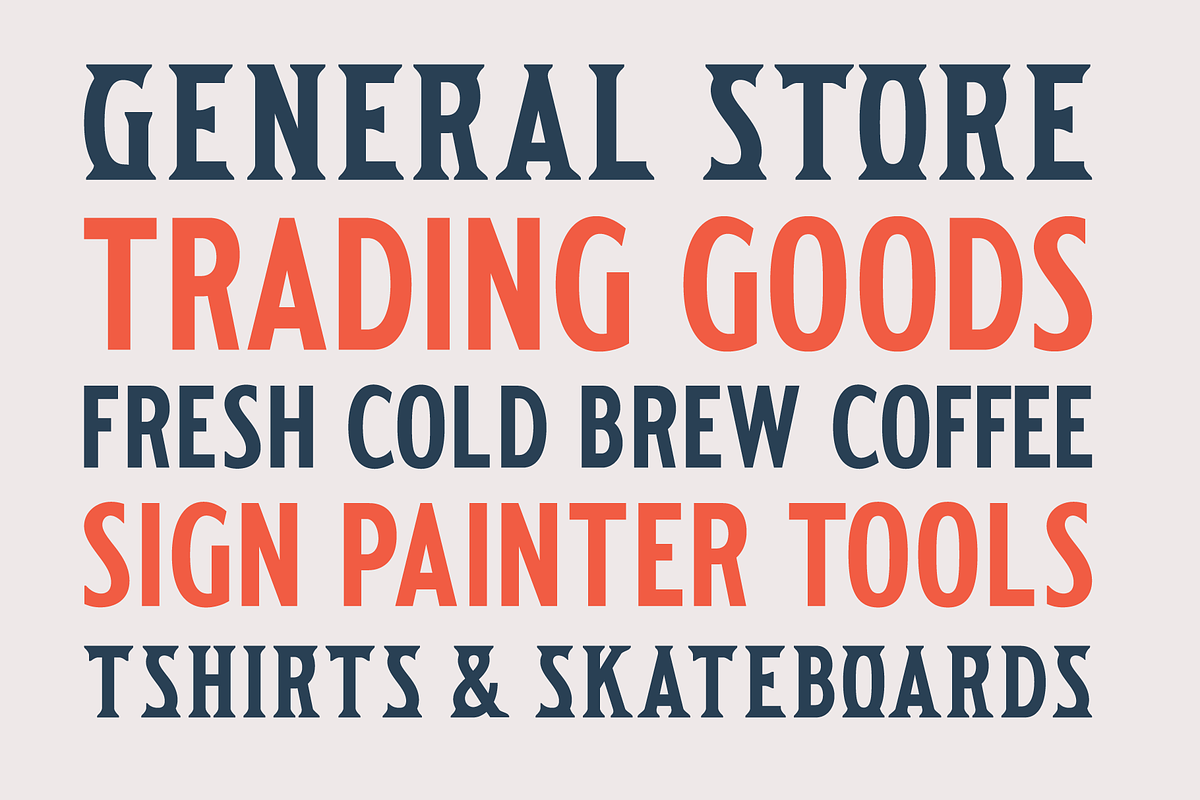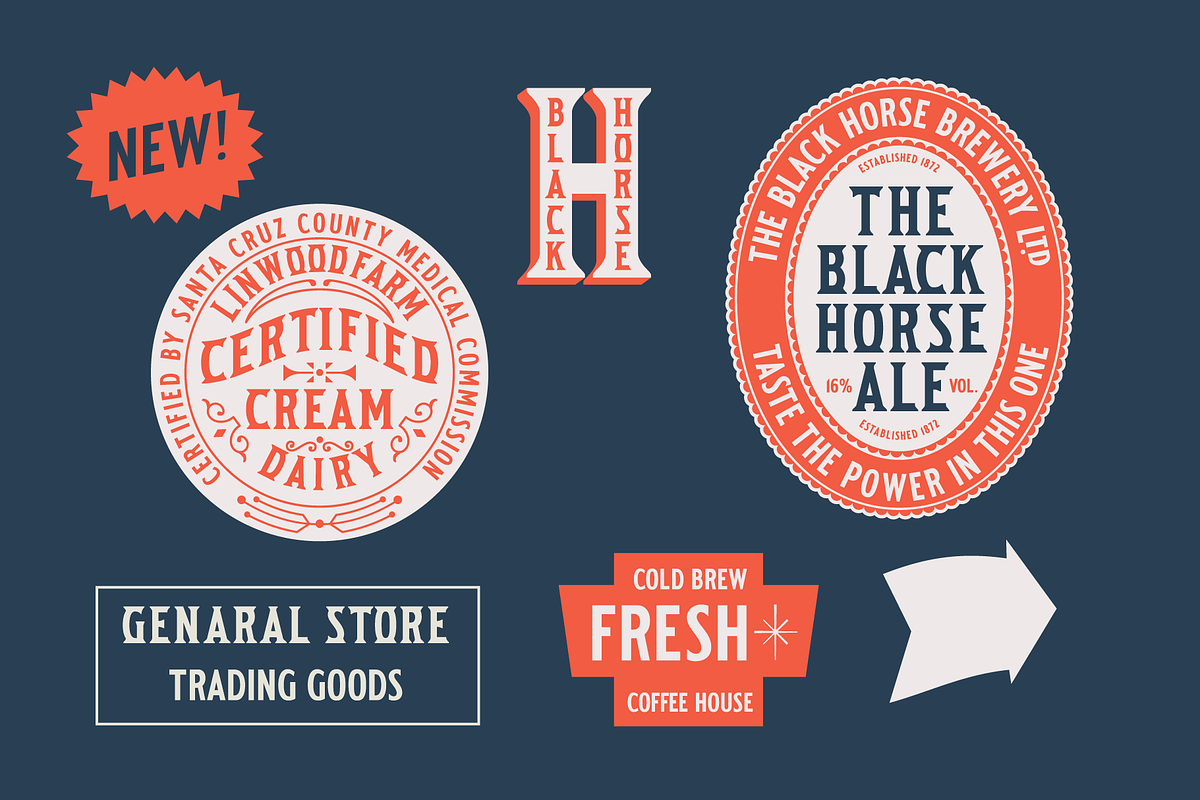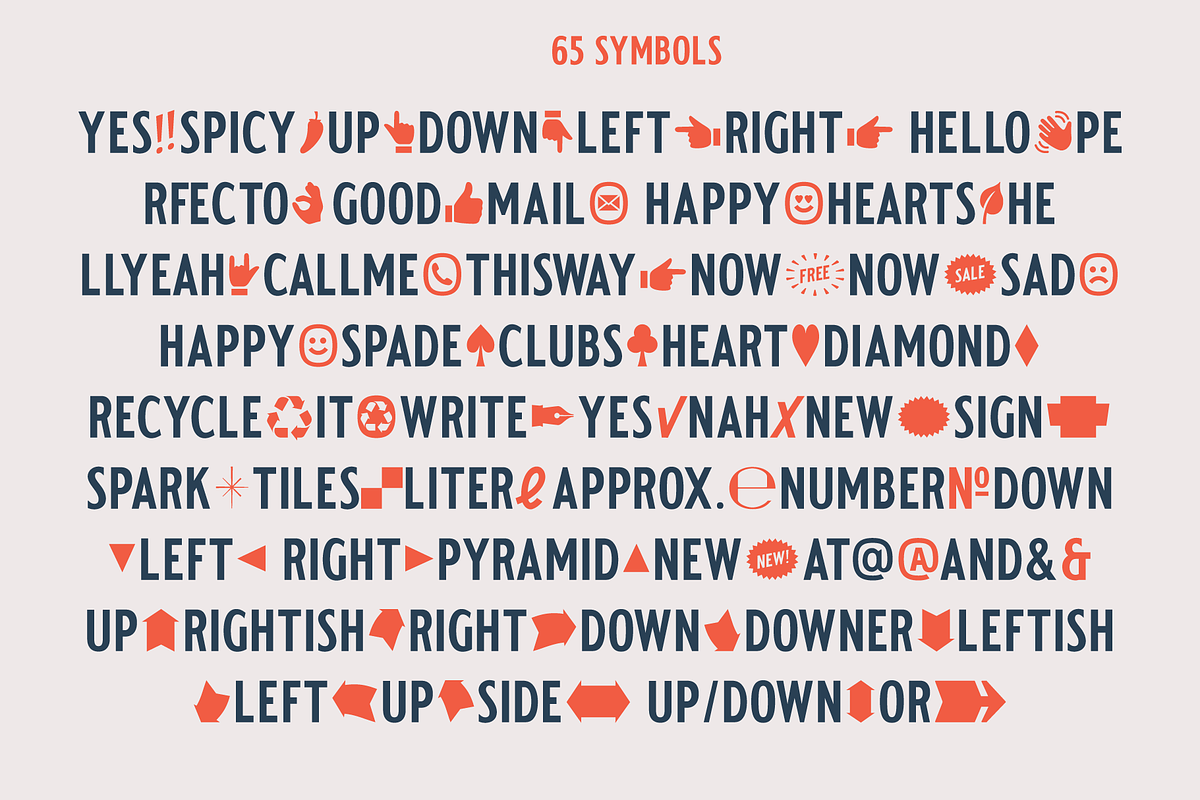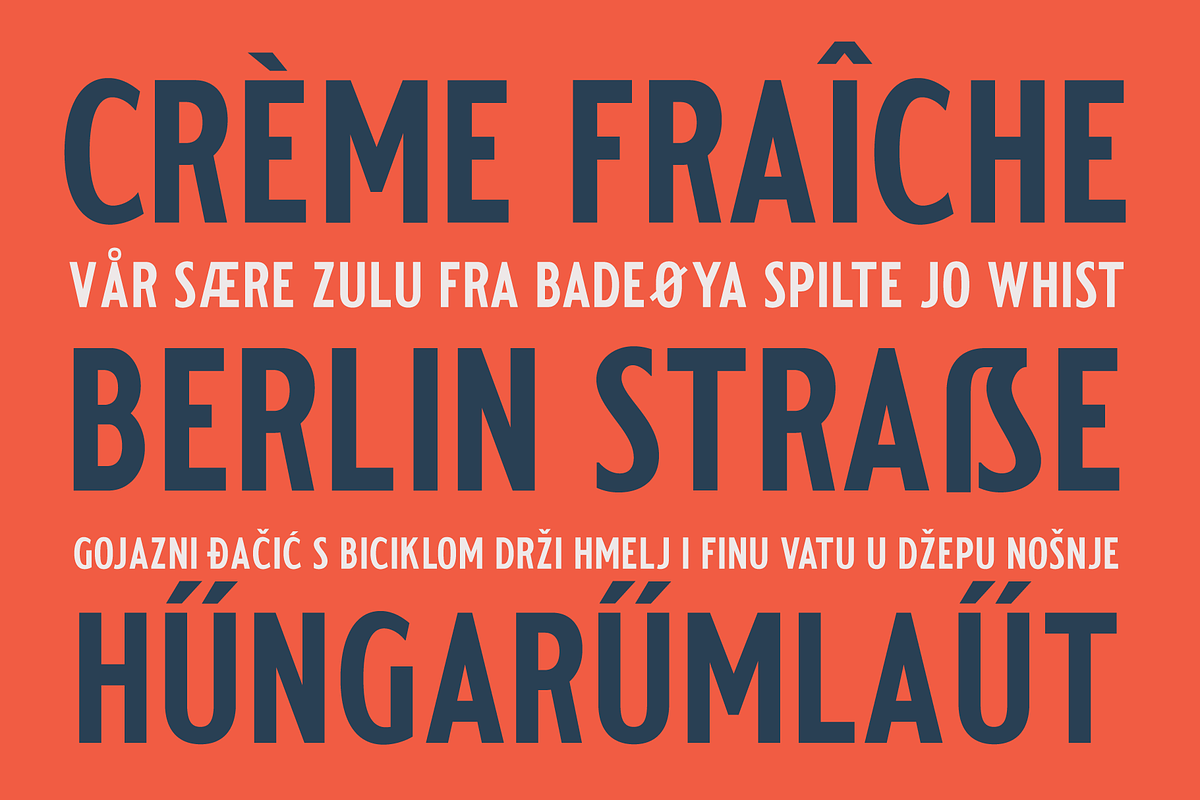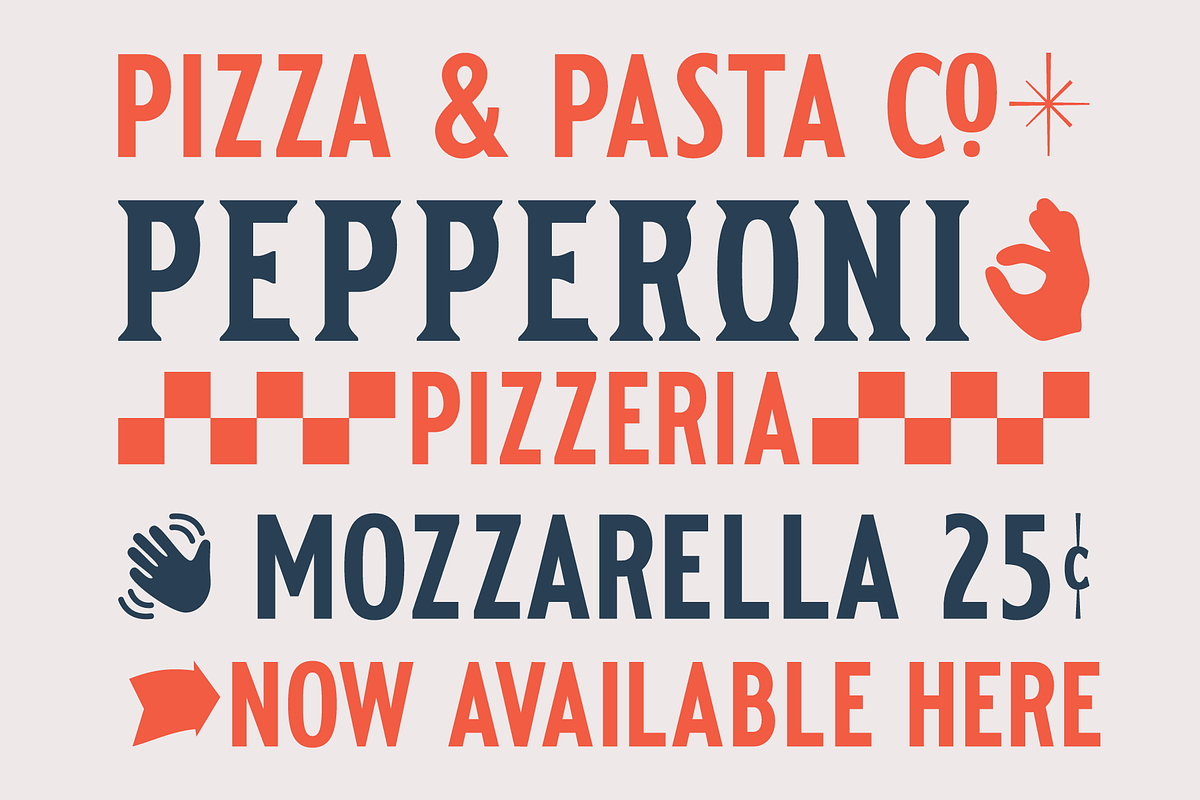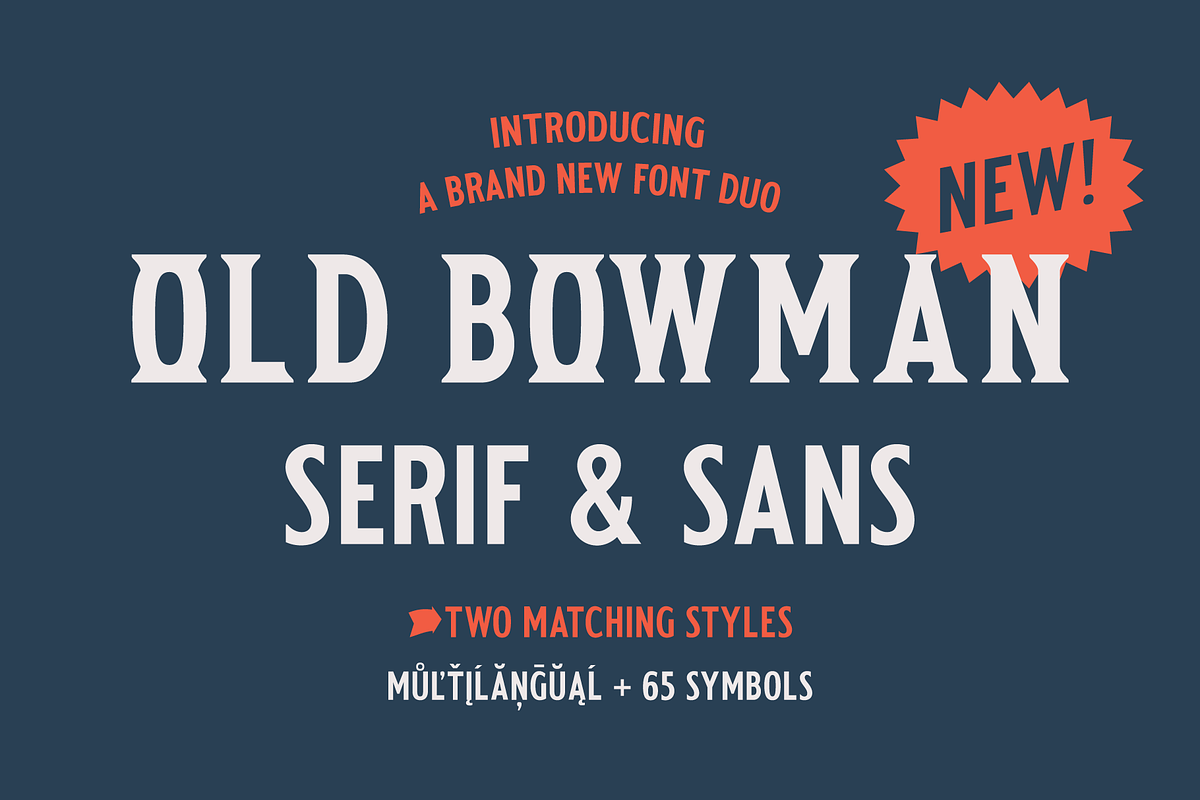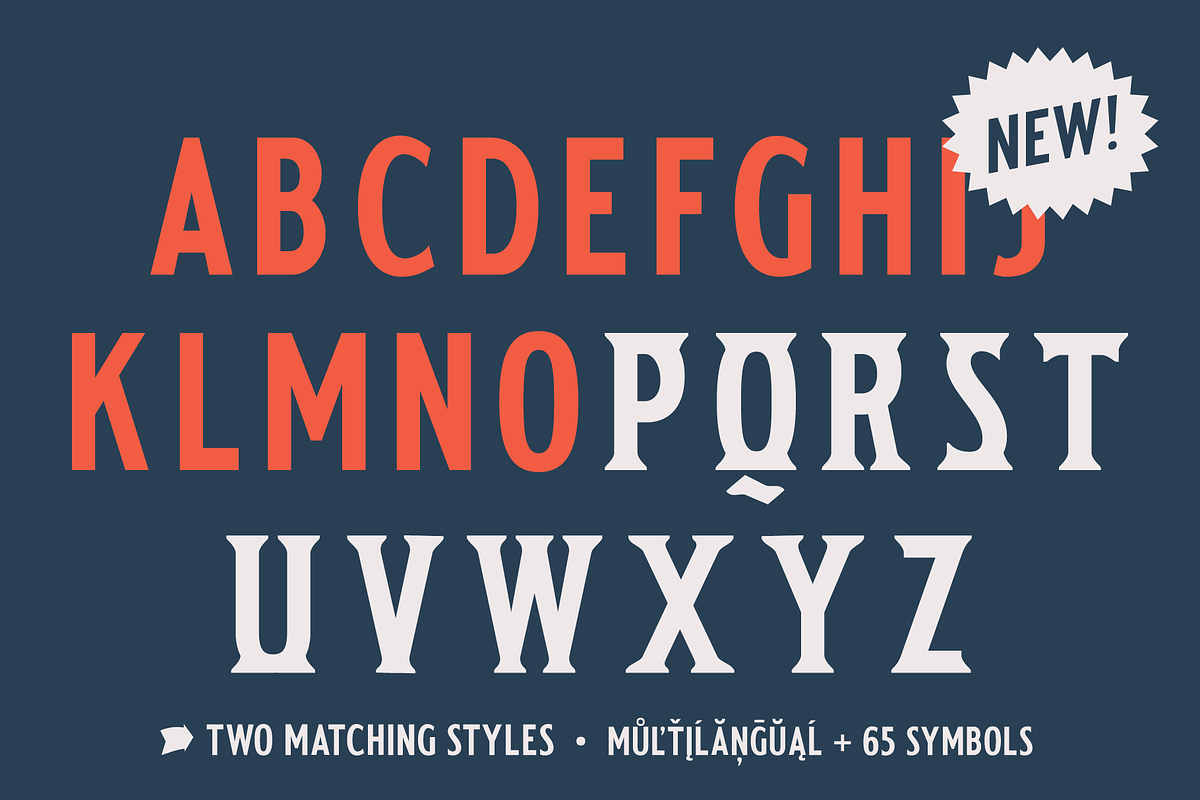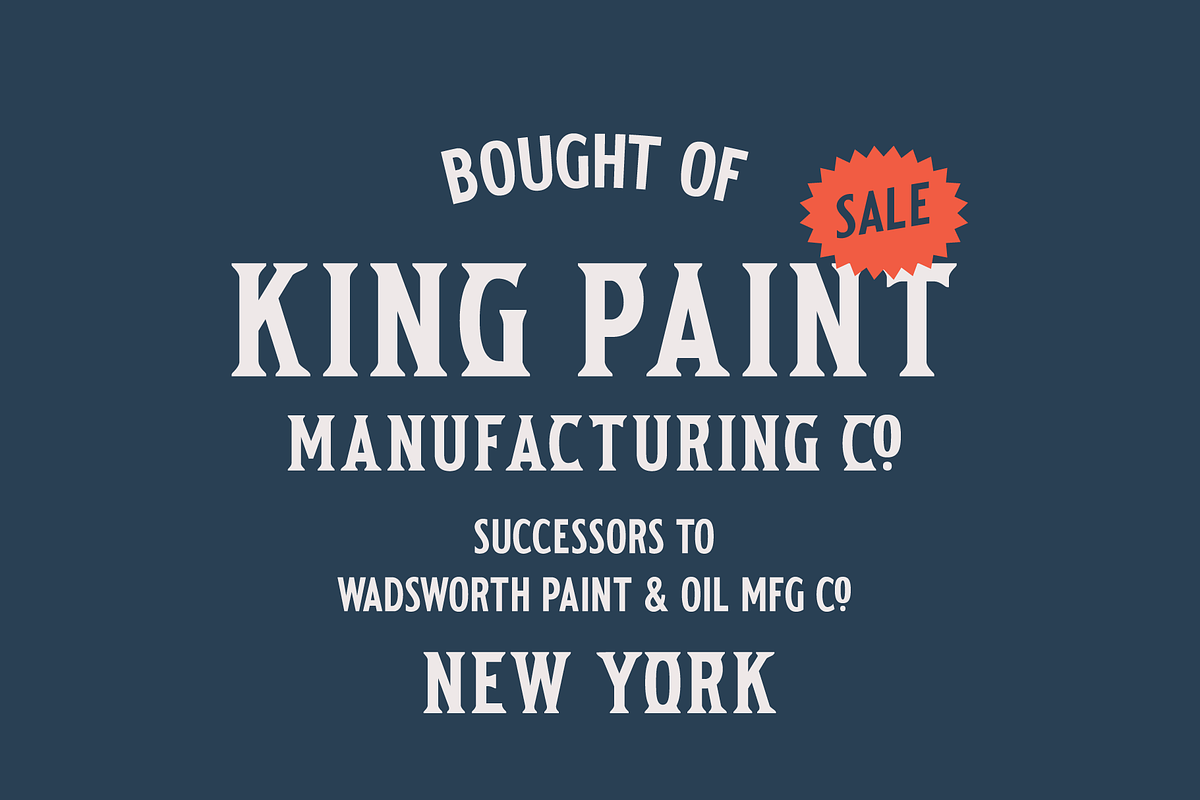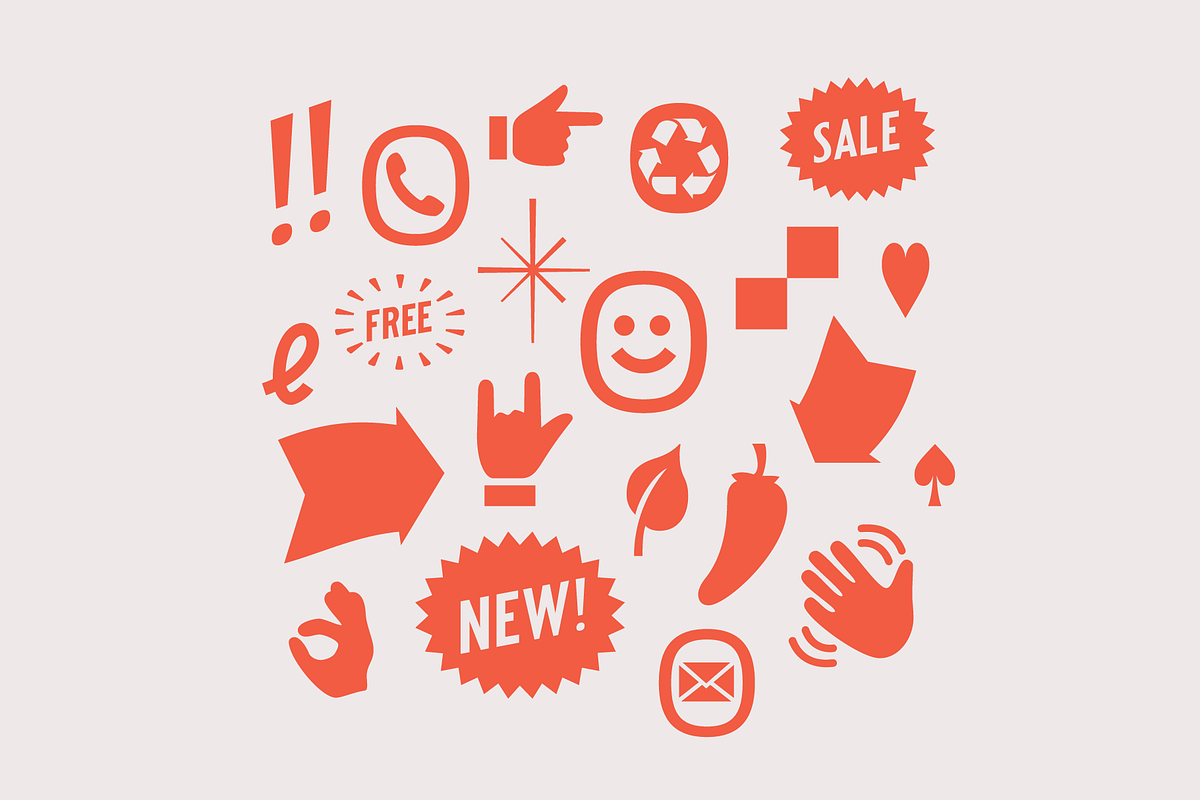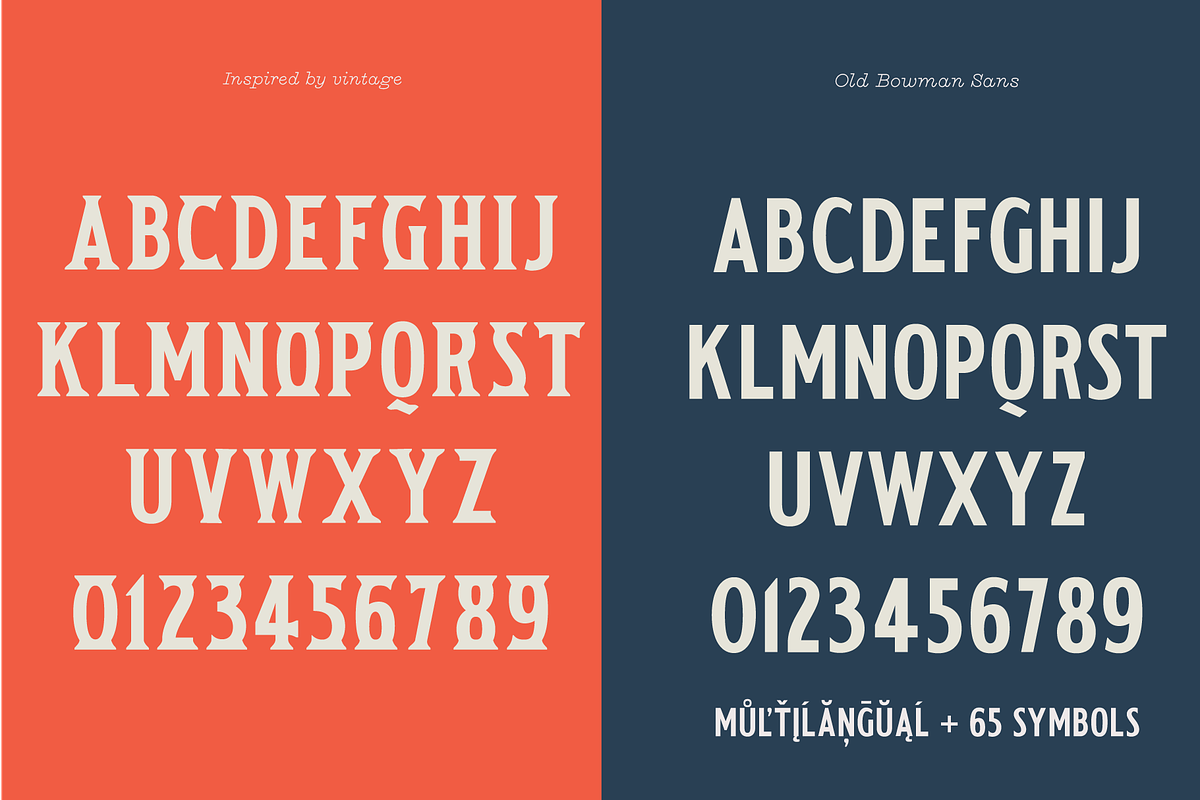
Old Bowman Sans & Serif
This handmade vintage inspired font duo was created, using 19th century signs and ephemera as inspiration. They look amazing together and can be used for modern and authentic designs.
Every font comes with a long list of characters and accents and it's own set of 65+ matching symbols that can be accessed via the glyphs panel in your favorite software or with OpenType features turned on.
Old Bowman Sans
Old Bowman Serif